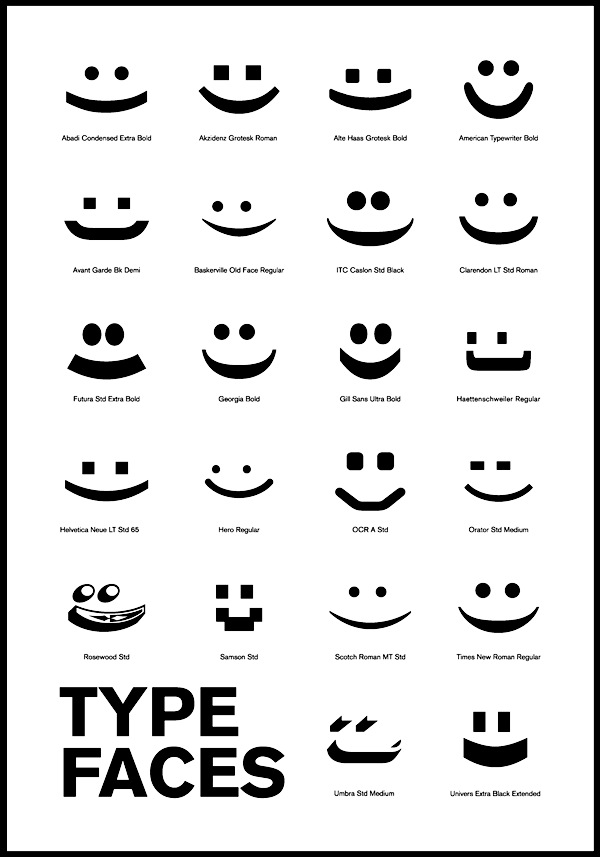
Abestweb Smilies
Shows smilies. No fonts. [Google]
Alphabet Design
[Boris Mahovac]
Boris Mahovac is a great Croatian designer. He founded Alphabet Design in Oakville, Ontario. One of his famous fonts is the kitchen tile face Kalendar. Other creations: Pixelina, Borek, Duckling, Fat Trace, Kloi (now Kloi BT (2004)), Tabita BT (2005, an informal font), and the great patterns of the Symbols font, JechoTecho. From the web site: He started working with digital fonts back in the days of bitmap fonts, sometime in 1988. At that time the studio operated in Zagreb, (former) Yugoslavia, which later became the capital of independent Croatia, under the name PixelPrint. The name changed to Abeceda Dizajn in 1992 while establishing itself as a successful typographic studio that specialized in font localization and type consulting. Abeceda Dizajn studio was the official distributor and manufacturer for Bitstream Inc. for Croatia and Slovenia from 1995 until 1997, when it relocated to Canada. Today, Alphabet Design is again a Bitstream re-seller. In 2005, Bitstream published Kloi, Borhand Tabitha, Duckling, as well as JechoTecho1 (the latter face was made by Evzen Jecho). Alphabet Design is donating all its proceeds of January 2005 to tsunami aid. In 2005, cartoonist Branimir Zlamalik created Smiles (dingbats) and Ulixa (comic book family). [Google]
Alphabytes
[Rob Leuschke]
St. Louis lettering artist Robert Leuschke (who grew up and lives in St. Charles, MO) has made some 250 calligraphic fonts for greeting cards, including many for Hallmark Cards, of which about 80 are commercially available: ITC Arid (1997), a flowing handwriting [see also here], ITC Chivalry (2003), Saliere (1997), Love (2003), SendFlowers (1988), Whisper (2003), RugeBoogie (2004), Ambiance (2004, an informal calligraphic design for Bitstream), and a handprinting font, Roelandt. The IRC Chat Font (smilies) is free. In 2003, he found an outlet for his work through P22 and published P22Corinthia, P22ImperialScript, P22OhLey [simulating Mexican writing], P22Petemoss and P22Ruthie. He also made RUSerius (2007, curly handwriting), Alex Brush (2003), Cherish Font (2003), ChildrenPlay ROB (2003), Ephesis (1988), Inspiration (2003), JackieO (2003), Licorice (2003), OoohBabyROB (2004), TheNautiGal (2006), Gideon (2009, roman), Corinthia (2009, calligraphic), Puppies Play (2009), Monte Carlo (2011). Rob Leuschke's bio. Klingspor PDF. MyFonts interview. [Google]
Apropos Creations (or: CreatiFonts)
This outfit made the following truetype alphadings in 1994: ACBlock, ACOval, AC1Chanukah, AC1Christmas, AC1Easter, AC1EasterBunny, AC1EasterEgg, AC1HoliDings1, AC1HoliDings2, AC1Holly, AC1Menorah, AC2Balloons1, AC2Balloons2, AC2Banner1, AC2Banner2, AC2BannerEnds, AC3Butterfly, AC3DiamondRing, AC3Family, AC3Hearts1, AC3Hearts2, AC3ILoveYou, AC3LoveDings1, AC3MothersLove, AC3Roses, AC3WeddingBands, AC3Wildflower, AC4Arrows1, AC4Arrows2, AC4Congratulations, AC4CourtiDings1, AC2Birthday, AC2Clown, AC2Forks, AC2ItsABoy, AC2ItsAGirl, AC2PartyDings1, AC2TeddyBear, AC2YoureInvited, AC3Anniversay, AC3BeMine, AC4FireWorks, AC4GetWell, AC4GoodBye, AC4GoodLuck, AC4HotAirBalloon, AC4Pencils, AC4ShootingStar, AC4SmileyFace, AC4ThankYou, AC4Welcome. Nowadays, they sell 10USD font paks under the name CreatiFonts in 4 categories: Holiday, Party, Love, Courtesy. [Google]
Bas Bierbooms
Designer of the alphading font Smiley Faces. [Google]
Branimir Zlamalik
Cartoonist in Canada who created Smiles (2005, smiling faces) and Ulixa (2005, a comic book face) at Alphabet Design. [Google]
Claude Pelletier
Quebec-based typographer and type designer (aka Diogene) who specializes mainly in revivals of obscure or old typefaces. Dafont link. Yet another URL. Abfonts carries many of his fonts. Fontspace link. His typefaces: - Salamandre (2012). A tall 19-th century style slab face.
- Angelica CP (2011)
- Barrio CP (2011). An inline face.
- BeansCP (2010, after a font found on page 10 of Art Deco Display Alphabets: 100 Complete Fonts by Dan X. Solo)
- Bizarre and Bizarrerie (2010; based on Edwards and Inland, both designed in 1895 by Nicholas J. Werner at the Inland Type Foundry; renamed in 1925 by BBS)
- Bloque Demo (2011). Experimental.
- Bold (2008)
- Carre (2009, athletic numerals).
- Champignon (1999-2009, a formal calligraphic script)
- Chartrand (2010, Victorian)
- Chomage (2009)
- Chopin Script (1999-2010, calligraphic; after Polonaise by Phil Martin)
- Constanze Initials (2010)
- Crayonnette (2000)
- DeClaude (2010, patterned and named after DeVinne)
- Derniere (1999)
- Dojo CP (2011)
- Dynamic CP (2010, based on page 48 of The Solotype Catalog of 4,147 Display Typefaces as Dynamic Deco)
- Ebony (2011). Based on a Marder&Luse design from 1890. Ebony is on page 38 of 100 Ornamental Alphabets by Dan X. Solo and also on page 43 of The Solotype Catalog of 4,147 Display Typefaces.
- Embrionic 85 (sic) (2012, +Swash Caps) and Embrionic 55 Swash (2012): an ink trap sans display family.
- Essai (2003)
- Euclid CP (2011): based on an 1880 face at Central Type Foundry.
- Fancy Text (2004, blackletter)
- Fantaisie1 (1999)
- Haricot (2010, a fat modular face based on Beans in the Dan Solo catalog)
- Humeur (2001-2002, funny smilies)
- IEC5000 (2011). A symbol font with electrical and other icons.
- Initiales Medium (2011)
- JohnHancockCP-Medium (2010, bold didone)
- Landi Echo (2011). A remake of Landi Echo by Alessandro Butti (1939-1943).
- La Tribune (2011). A newspaper type.
- Le Golf or Le Trou (2010, art nouveau face by Antoine Szczebanski, digitized by Claude Pelletier; also on page 71 of the Solotype catalogf)
- Lionel P (2010, a multiline face inspired by Letraset's 1973 face Stripes)
- Malvern (1999)
- Monterey Wide (2011). A Tuscan ornamental face, based on a showing on page 22 of The Solotype Catalog of 4,147 Display Typefaces.
- Motscroises (1997)
- Oxford CP (2010, a multiline face, based on the 1960s face by Christine Lord)
- Pasdecourbe (2003)
- Pasdenom (2001, no punctuation)
- Pepinot (2012), an art nouveau face based on Coral Inline on page 190 of The Solotype Catalog of 4,147 Display Typefaces.
- Pistilli Roman (2011, after the original by Pistilli)
- Postface (2012). A bold signage script face.
- Rita Smith (2012). After Primavera by Rita Major.
- TriangleETcircleShadow, TriangleETcircleShadowed (2010, 3d iron work style face)
- UptightC (2010, multiline face)
TYPEsetIT
[Robert E. Leuschke]
Rob Leuschke was born in and lives in St. Charles, MO. A former lettering artist at Hallmark Cards (1983-1987), Rob Leuschke now has his own design businesses, Alphabytes and the new TypeSETit. He earned a BFA in graphic design at the University of Missouri at Columbia. He started freelancing in 1987. Rob has created over 250 custom typefaces. In addition, he made tens of calligraphic and other script faces. Ambiance BT is Rob's first typeface. Also, early on, he created the free emoticon font AairChat (1995). He used to run Alphabytes (dead URL). He founded TYPEsetIT in 2004. MyFonts place. In 2008, he took his fonts and site to P22. Fontsquirrel link. Fontspace link. FontShop link. Fontspace link. Interview. Pic. Another Fontspace link. An incomplete list of his creations: AlexBrush, Bilbo, Cherish, Ephesis, Hurricane, Ingrid Darling, Inspiration, Jackie-O, Licorice, Kolker Brush (2004, Western version of Japanese calligraphy), Love, Neanderthaw, Ruge Boogie, Saliere, Send Flowers, Updock, Whisper, TheNautiGal (2006, connected script), Water Brush, Love Light, Passions Conflict, Mea Culpa, Beau Rivage, Good Vibrations, Great Vibes, Lovers Quarrel, GrechenFuemen, Moon Dance, MsMadi, Lavishly Yours, Bonheur Royale (2005), Fuzzy Bubbles, LA Heat (2005), Qwigley ROB (2005), Vujah Day, he added Kings Honor (2006), Kings Quest (2006), Kings Dominion (2006), RUSerius (2007, curly handwriting), QwitcherBychen (2007, calligraphic), Arizonia (2007, calligraphic, based on lettering seen on a truck), Road Rage ROB (2008, grunge), GreyQo (2008, calligraphic), FleurDeLeah (2008, flowery calligraphic), MySoulOne (2008), MooLahLah (2008, cow-spotted letters), SassyFrassROB (2008, calligraphic). MyFonts sells Alex Brush, Allison, Ambiance BT, ITC Arid, Arizonia, Babylonica (2008, a great connected brushy script), Beau Rivage, Bilbo, Bilbo Swash Caps (2011, Google Web Fonts), Bonheur Royale, Caramel (Crunch, Candy, Nuggets), Carattere, Cherish, ITC Chivalry, Corinthia (calligraphic but with slope errors on some connections such as between "o" and "r"), Ephesis, FleurDeLeah, Fuzzy Bubbles, Good Vibrations, Grapenuts, Great Vibes (2012, Google Web Fonts), GrechenFuemen, GreyQo, Gwendolyn, Holiday Font, Hurricane, Imperial Script, Ingrid Darling, Inspiration, Jackie O, Kings, Kolker Brush, LA Heat, Lavishly Yours, Licorice, Love Light, Lovers Quarrel (since 2012 at Google Web Fonts), Mea Culpa, MooLahLah, Moon Dance, Ms Madi, MySoulOne, Neonderthaw, Oh Ley, Oooh Baby, Passions Conflict, Petemoss, Qwigley, QwitcherBychen, RoadRage, Roelandt BT, Ruge Boogie, RUSerius, Ruthie, Saliere, SassyFrass ROB, Send Flowers, Shalimar, Square Peg, Tapestry, TheNautiGal, Twinkle Star, Updock, VujahDay, Water Brush, and Whisper. Fonts made in 2009 at P22: Babylonica, RobsPickles, RoadRage, QwitcherBychen, the Caramel family (including Crunch, Candy, Nuggets). In 2009, he also published Italianno ROB. Typefaces made in 2010: Allura (see Google Web Fonts), Estonia Nouveau (based on calligraphy by Villu Toots), Estonia Regular, Estonia Swash, Island Moments, Neon Derthaw (neon light face). Typefaces from 2011: Robs Pickles, Waterfall, Monte Carlo (formal script), Genos, Bilbo (free at Google Web Fonts), Playball (free connected script face at Google Web Fonts). Designs from 2012: Explora (a delicate calligraphic script face). Showcase of Rob Leuschke's typefaces at MyFonts. View Rob Leuschke's fonts. [Google]
West Wind Fonts